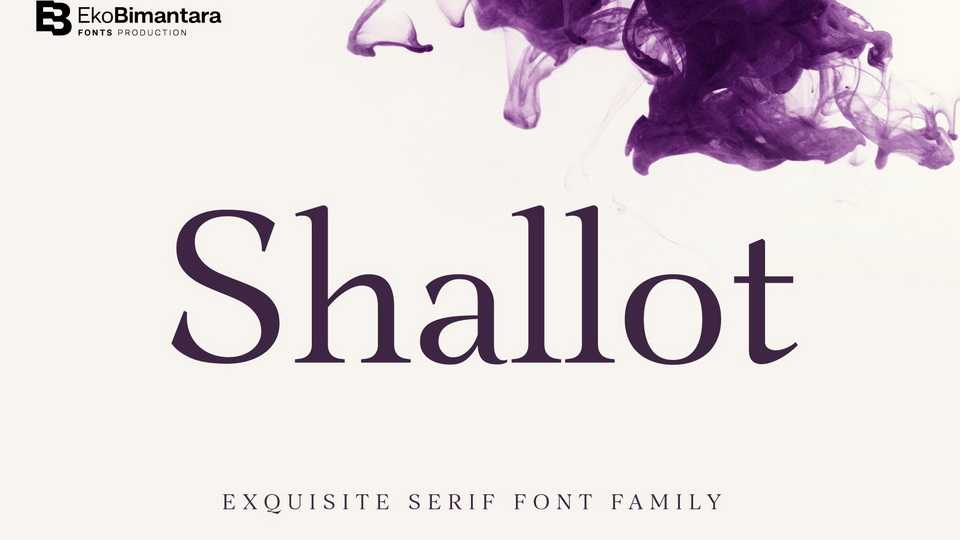
Download Shallot font, a serif typeface with sharp and exquisite characteristic. The initial letterforms of Shallot font are made not completely based on calligraphic strokes, which make it more likely close to transitional serif style.